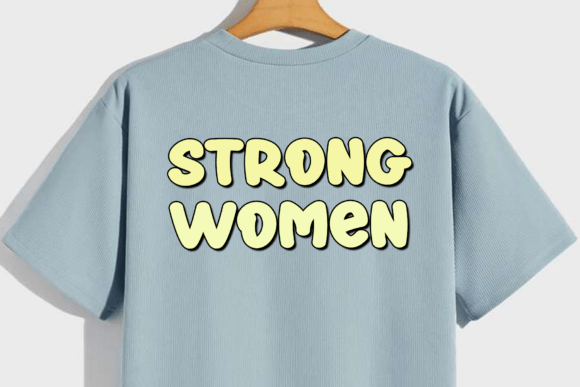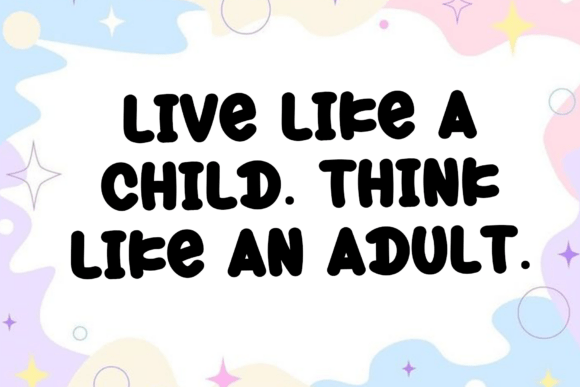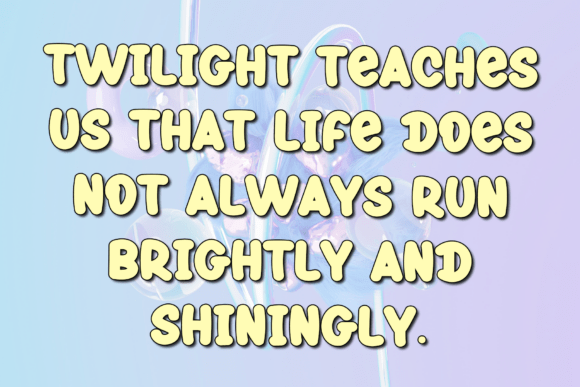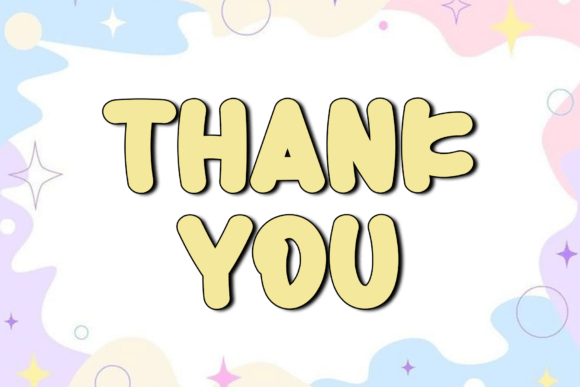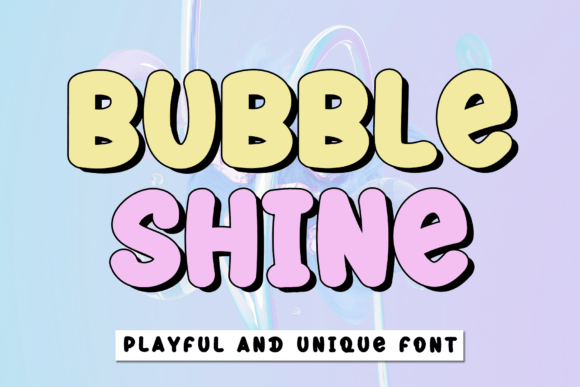
Bubble Shine Font: Elevate Your Designs with a Minimal and Neat Style
Bubble Shine is a minimal and neat font that has been making waves in the design community. Its simplicity and elegance make it an excellent choice for a wide range of projects, from crafting and DIY tutorials to professional branding and advertising materials. In this article, we’ll dive into the world of Bubble Shine Font and explore its features, benefits, and uses.
The Characteristics of Bubble Shine Font
Bubble Shine Font is a clean and minimalist typeface that exudes a sense of modernity and sophistication. Its sleek lines, rounded edges, and consistent lettering make it a joy to read and work with. The font’s minimalistic approach allows it to blend seamlessly with a variety of design styles, making it an incredibly versatile choice for designers and crafters.
The Benefits of Using Bubble Shine Font
So, what makes Bubble Shine Font an attractive option for designers and crafters? Here are just a few benefits of using this amazing font:
- Easy to Read: Bubble Shine Font is designed to be easy to read, even at small sizes. This makes it perfect for body text, captions, and other applications where legibility is crucial.
- Highly Versatile: The font’s minimalist style allows it to work well with a wide range of design styles, from modern and sleek to vintage and distressed.
- Customizable: Bubble Shine Font can be easily customized to fit your brand’s unique style. You can adjust the font size, color, and spacing to create a look that’s all your own.
- Time-Saving: With Bubble Shine Font, you can create professional-looking designs in no time. The font’s clean lines and simple style eliminate the need for tedious formatting and editing.
Creative Uses for Bubble Shine Font
Bubble Shine Font is an incredibly versatile typeface that can be used in a wide range of creative projects. Here are just a few ideas to get you started:
- Crafting and DIY Tutorials: Use Bubble Shine Font to create eye-catching titles, headings, and captions for your crafting and DIY tutorials.
- Branding and Advertising: Add a touch of modernity and sophistication to your branding and advertising materials with Bubble Shine Font.
- Social Media Graphics: Use Bubble Shine Font to create engaging social media graphics, including Facebook posts, Instagram captions, and Twitter headers.
- Blogging and WordPress: Add a professional touch to your blog or WordPress site with Bubble Shine Font.
Bubble Shine Font is a minimal and neat font that can easily be matched to an incredibly large set of projects. Its simplicity, elegance, and versatility make it an excellent choice for designers and crafters looking to add a touch of modernity and sophistication to their designs. Whether you’re working on a crafting tutorial, branding materials, or social media graphics, Bubble Shine Font is sure to make your designs stand out. So why wait? Add Bubble Shine Font to your creative toolkit today and discover the difference it can make!